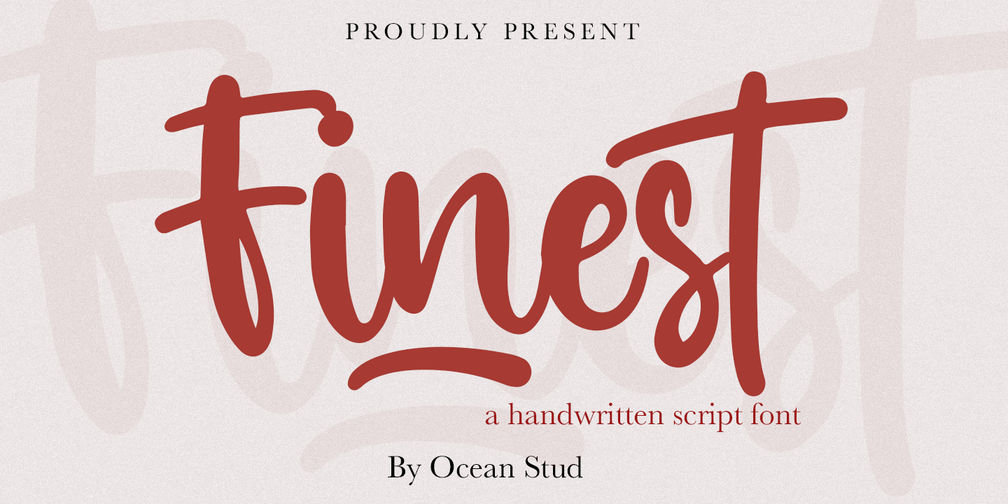
Finest
Finest is a stylish handwritten script font that captures the essence of natural brush strokes with a modern and expressive twist. Designed to feel personal yet polished, Finest features smooth curves, playful letterforms, and a confident baseline flow that brings warmth and authenticity to any design. Its organic rhythm and subtle texture make it perfect for branding, packaging, social media graphics, quotes, and editorial layouts that seek a human touch.
What sets Finest apart is its versatility. With a rich set of ligatures, alternates, and swashes, this font allows designers to create dynamic and customized lettering compositions effortlessly. Each character is crafted to connect seamlessly, delivering a fluid writing experience that mimics real handwriting. Whether used for bold headlines or elegant signatures, Finest maintains clarity while adding personality.
Balanced between casual charm and refined style, Finest is ideal for projects that want to feel approachable yet distinctive. It’s a perfect choice for creatives looking to elevate their visual storytelling with a font that feels both trendy and timeless.